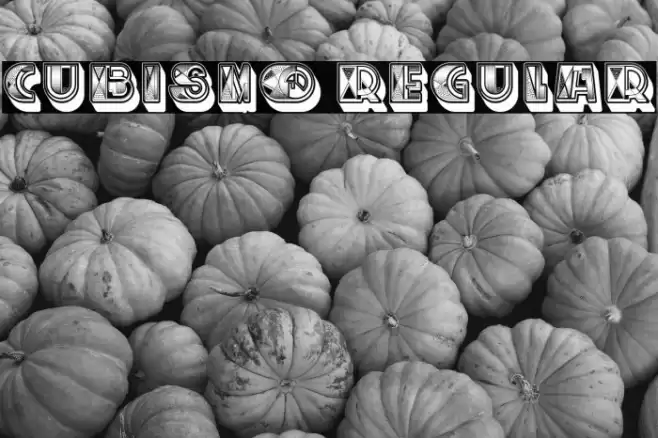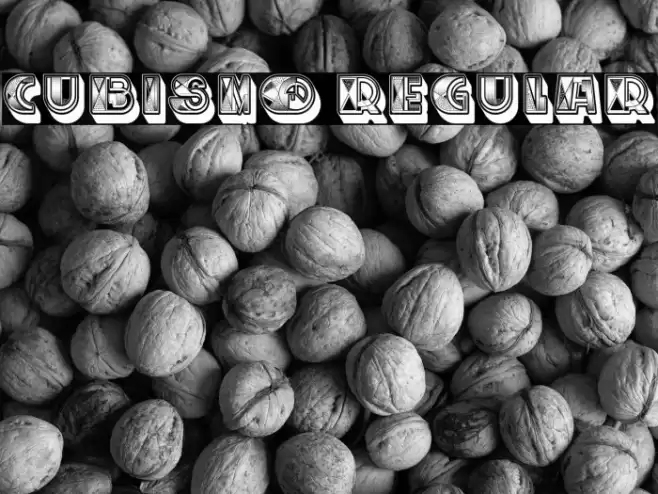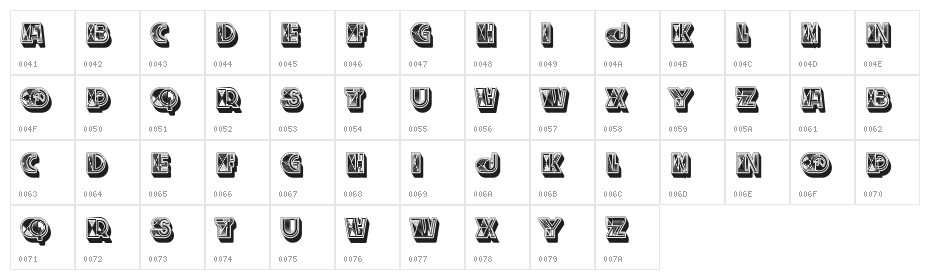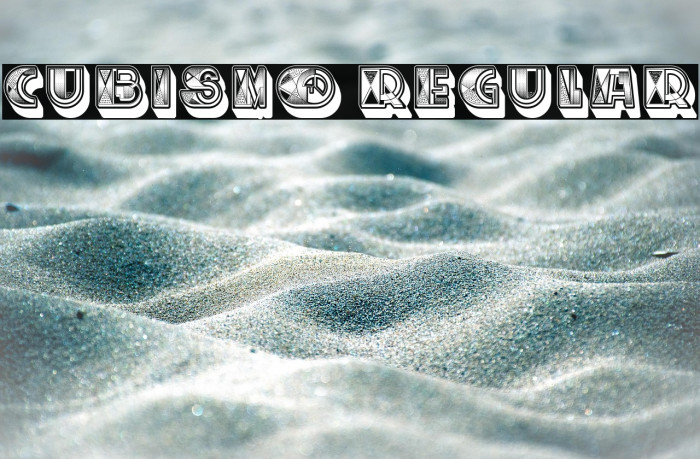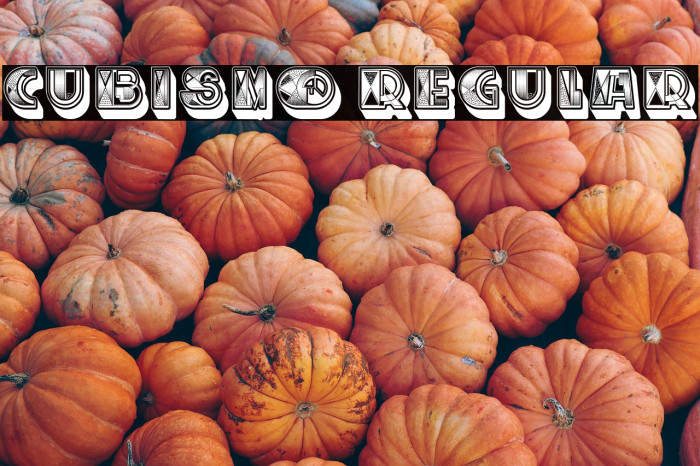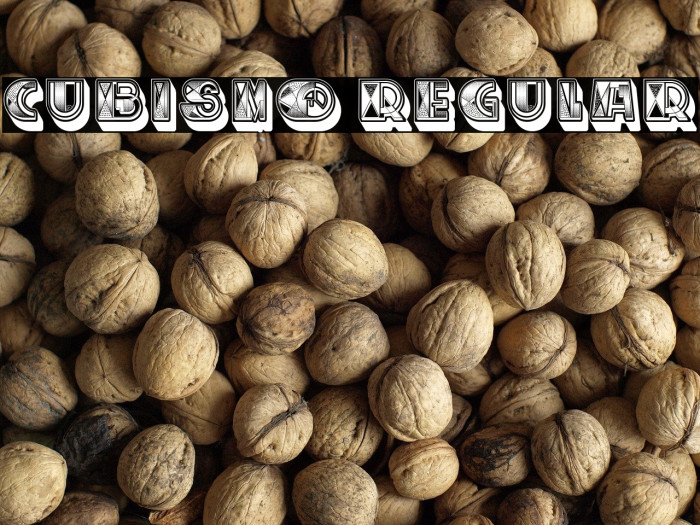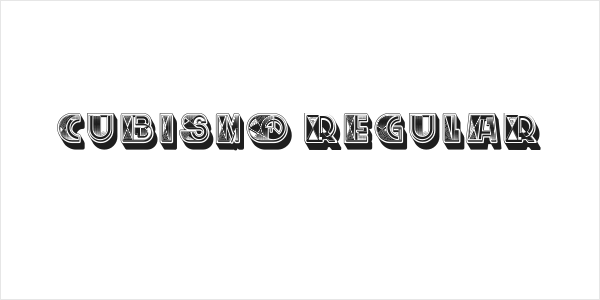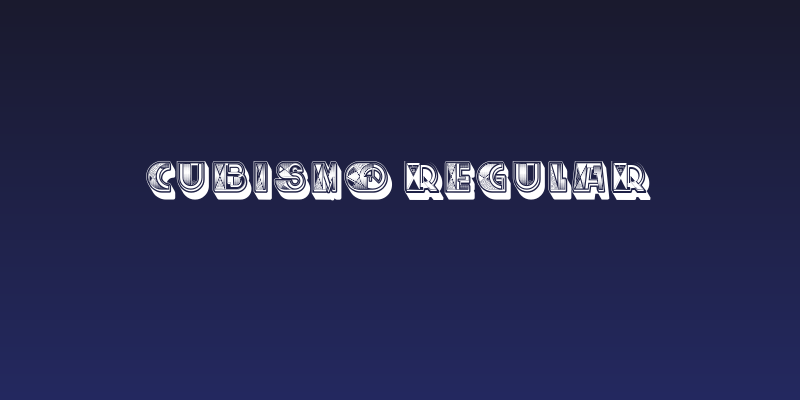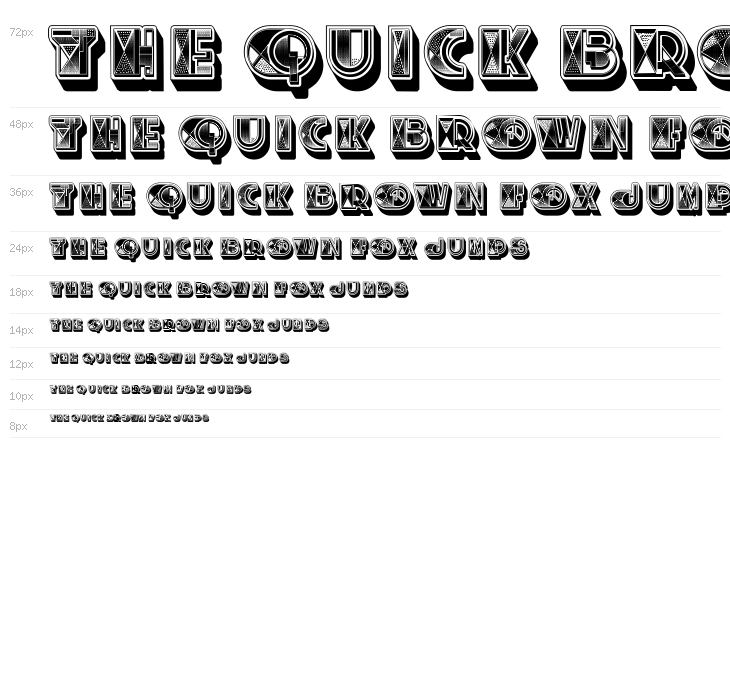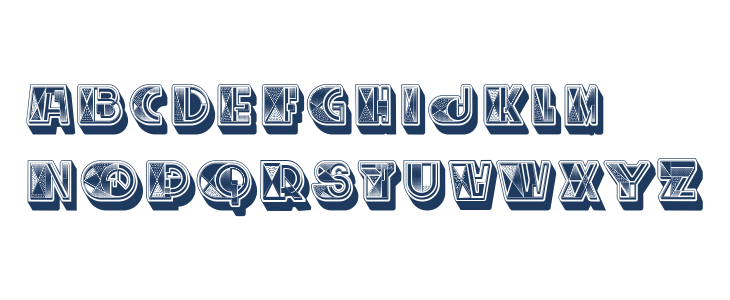
Cubismo Regular Font
Cubismo Regular Description
This font features a bold, geometric design with a three-dimensional effect. Each character is crafted with intricate patterns and shading, giving it a distinct, artistic appearance. The letters are structured with sharp angles and clean lines, creating a sense of depth and movement. The style is reminiscent of cubist art, with a modern twist that makes it stand out. The font is highly decorative, making it ideal for eye-catching designs. Its unique aesthetic is perfect for projects that require a bold statement, combining artistic flair with a contemporary edge.
A bold, geometric font with a three-dimensional, cubist-inspired design from Decorative fonts.
- Proposed Projects: Ideal for posters, album covers, branding, and any project needing a bold, artistic touch.
- Overall Style: Modern, Artistic